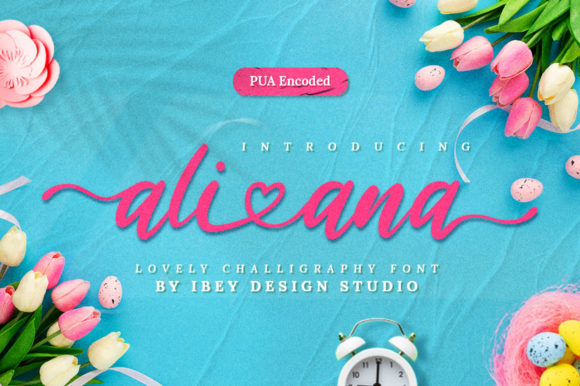
The Quest for the Perfect Font: Discovering Ali Ana
I still remember the frustration of working on a project, hours spent crafting the perfect design, only to have it fall flat because of one crucial element: the font. My client wanted something elegant, yet modern; classic, yet distinctive. I scoured the internet, tried countless fonts, but none seemed to hit the mark. That was until I stumbled upon Ali Ana, an elegant script font that has since become a staple in my design toolkit.
First Impressions: An Honest Review
I’ve had the pleasure of working with Ali Ana on several projects, and here’s my honest review:
• ✨ Elegant yet modern vibe: Ali Ana strikes the perfect balance between timeless classic calligraphy and contemporary design.
• ✅ Balanced and varied: The font’s strokes are neither too thin nor too thick, making it versatile for various projects.
• 💻 PUA encoded for easy access: With Ali Ana, you can easily access all glyphs and swashes, giving you creative freedom.
While Ali Ana is an excellent font, there are a few minor considerations:
• ⚠️ Requires OpenType features support: To get the most out of Ali Ana, your design software should support OpenType features.
• 🤔 May not be suitable for very large or very small text: Ali Ana shines in display text and body text, but might not be ideal for extremely large or small sizes.
The Story Behind Ali Ana: Designer Inspiration
Ali Ana was crafted with the goal of creating a font that embodies both classic elegance and modern simplicity. Inspired by timeless calligraphy, its designer aimed to produce a typeface that would add beauty and sophistication to any project. The result is a font that feels both refined and approachable.
Q: What makes Ali Ana unique?
Ali Ana stands out due to its elegant yet modern design, balanced stroke widths, and extensive OpenType features, making it versatile for various creative projects.
Q: Does Ali Ana support ligatures?
Yes, Ali Ana supports ligatures and other OpenType features, enhancing its usability in professional design work.